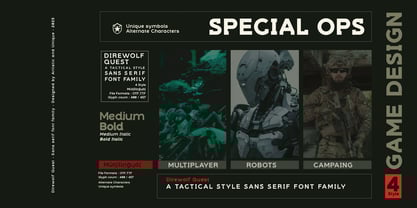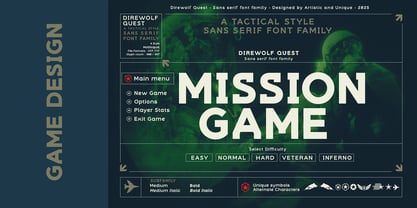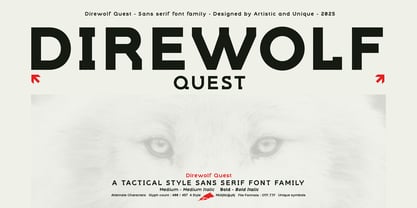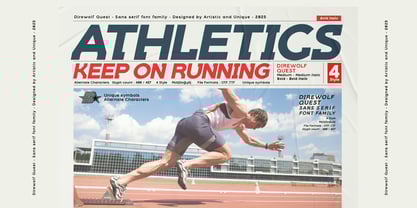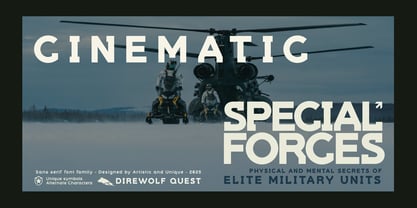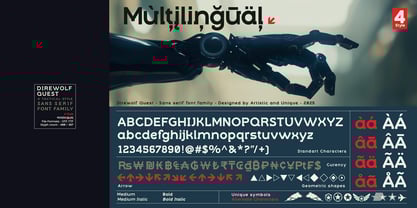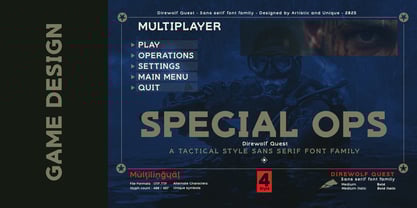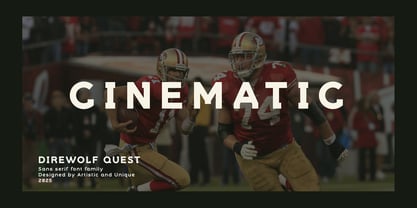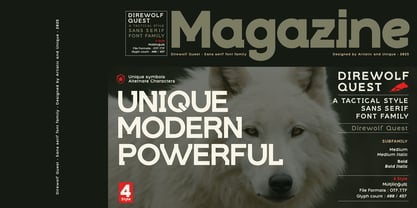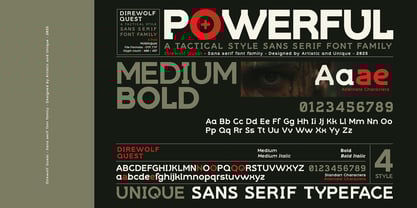
Direwolf Quest
Direwolf Quest - Sans serif font family - 4 Styles - Multilingual supports.
Direwolf Quest is a Tactical style sans serif font family.
Although it is also suitable for display use, due to its modern, futuristic and athletic and structure, it was designed as a font that can be effective in creating brand identity and branding in all visual and printed materials of the same concept, from military and special forces, tactical equipment, athletic sports, science fiction themed games to movies.
You can catch a strong-dynamic and fast tempo by using italic style in your action-oriented projects.
It includes 4 styles and multilingual options and some unique symbols as well as alternative characters.
Especially for game design, Military, tactical equipment, athletic sports, science fiction, magazines, books, branding, logo design, web design, headlines, movie titles etc.
With this font you can create your unique designs.